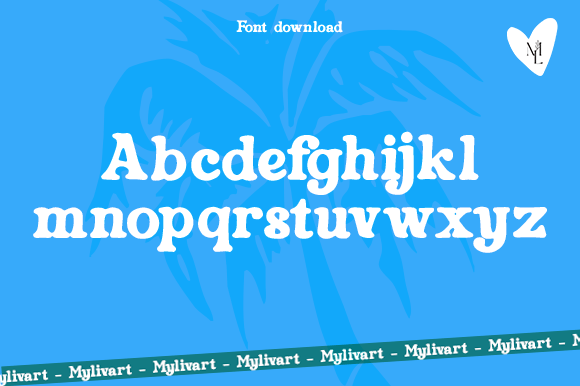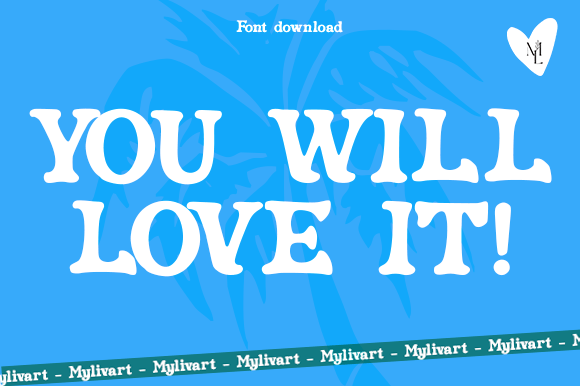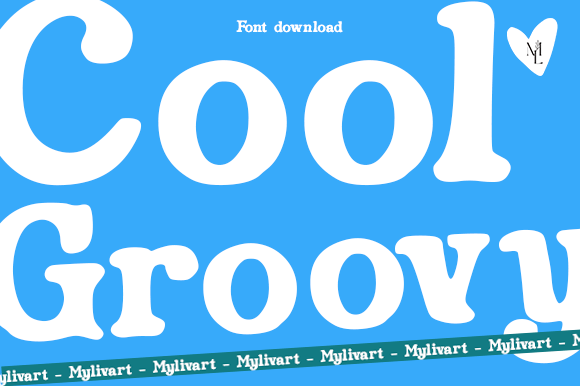
Introducing Cool Groovy: The Ultimate Retro Serif Font for Designers and Crafters
Are you ready to add a blast of fun and nostalgia to your designs? Look no further than Cool Groovy, a bold and playful retro serif font that’s about to become your new favorite go-to typeface. Inspired by the iconic vibes of the 80s, Cool Groovy is the perfect combination of chunky curves, bubbly charm, and nostalgic personality that will instantly elevate your designs to the next level.
The Retro Revival: What Makes Cool Groovy So Special
Cool Groovy is more than just a font – it’s a statement piece. With its bold, chunky curves and playful serifs, this typeface is guaranteed to grab attention and make your designs stand out from the crowd. Whether you’re working on eye-catching headlines, funky posters, logo designs, or social media graphics, Cool Groovy adds that perfect touch of vintage flair with a modern attitude.
As a designer or crafter, you’re always on the lookout for unique and versatile typefaces that can help you express your creativity. Cool Groovy is the perfect fit for a wide range of design projects, including:
- Branding: Add a touch of retro charm to your brand identity with Cool Groovy’s bold and playful font style.
- Packaging: Make your product packaging stand out with Cool Groovy’s eye-catching and fun font.
- Social Media Graphics: Create engaging and shareable social media graphics with Cool Groovy’s nostalgic and modern vibe.
- Posters and Flyers: Create bold and attention-grabbing posters and flyers with Cool Groovy’s chunky curves and playful serifs.
- Logo Design: Create a unique and memorable logo with Cool Groovy’s bold and stylish font.
Key Features of Cool Groovy
So what makes Cool Groovy so special? Here are some of the key features that set this font apart:
- Retro-Inspired: Cool Groovy is inspired by the iconic vibes of the 80s, making it perfect for designers and crafters who love retro-style designs.
- Bold and Playful: With its chunky curves and playful serifs, Cool Groovy is the perfect font for adding a touch of fun and personality to your designs.
- Versatile: Cool Groovy is perfect for a wide range of design projects, from branding and packaging to social media graphics and posters.
- Easy to Read: Despite its bold and playful style, Cool Groovy is easy to read, making it perfect for headlines, titles, and short paragraphs of text.
How to Use Cool Groovy in Your Designs
- Pair it with a neutral font: Pair Cool Groovy with a neutral font, such as a sans-serif font, to create a balanced and harmonious design.
- Use it for headlines: Cool Groovy is perfect for headlines and titles, where its bold and playful style can really shine.
- Experiment with colors: Cool Groovy looks great in a wide range of colors, from bright and bold to pastel and soft.
- Add some texture: Add some texture to your design by combining Cool Groovy with a textured background or overlay.
Cool Groovy is a bold and playful retro serif font that’s perfect for designers and crafters who want to add a touch of fun and nostalgia to their designs. With its chunky curves, bubbly charm, and nostalgic personality, this typeface is guaranteed to grab attention and make your designs stand out from the crowd. Whether you’re working on branding, packaging, social media graphics, or posters, Cool Groovy is the perfect fit. So why wait? Get ready to groove with Cool Groovy and take your designs to the next level!